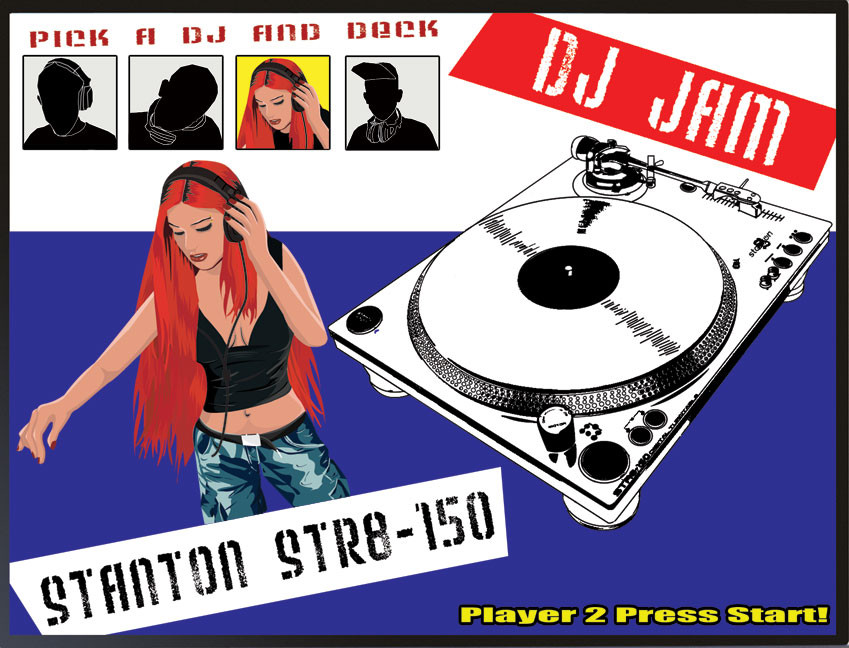
This font is based on the logo i saw for DAGroove. I liked the font but couldnt seem to find somewhere to download it from. So created it for myself as my first font and tweaked it to what i wanted. I've created 3 versions of the font, one angular, one that has curved top corners and one that has curved bottom corners, allowing you to mix and match them to create nice blocks of text.Hope you enjoy the font, spread it around but it is not for commerical use. If you want to use it commerically then please contact me first.